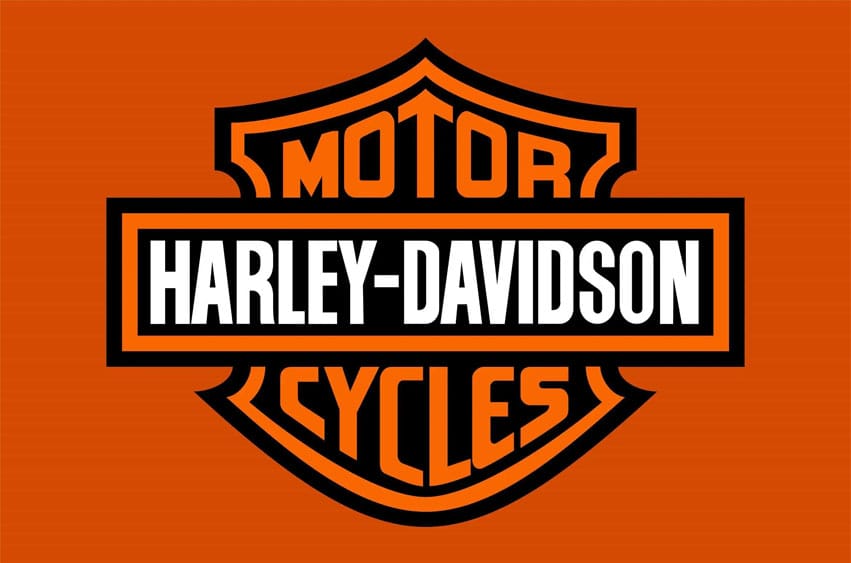
Harley Davidson Font is the name of a family logo font belonging to an American motorcycle manufacturer headquartered in Milwaukee, Wisconsin, USA since 1903. Established by four members, William S. Harley, Arthur Davidson, Walter Davidson and William A. Davidson it reportedly earns annual revenues of $5.647 billion according to reports issued from 2017.
By doing this, you can gain an idea of the company’s popularity in America. Here at our website we would like to introduce the font family used for Harley Davidson’s logo design: Compacta Font is one such typeface created by Fred Lambert for Letraset in 1963 and used on their logo.